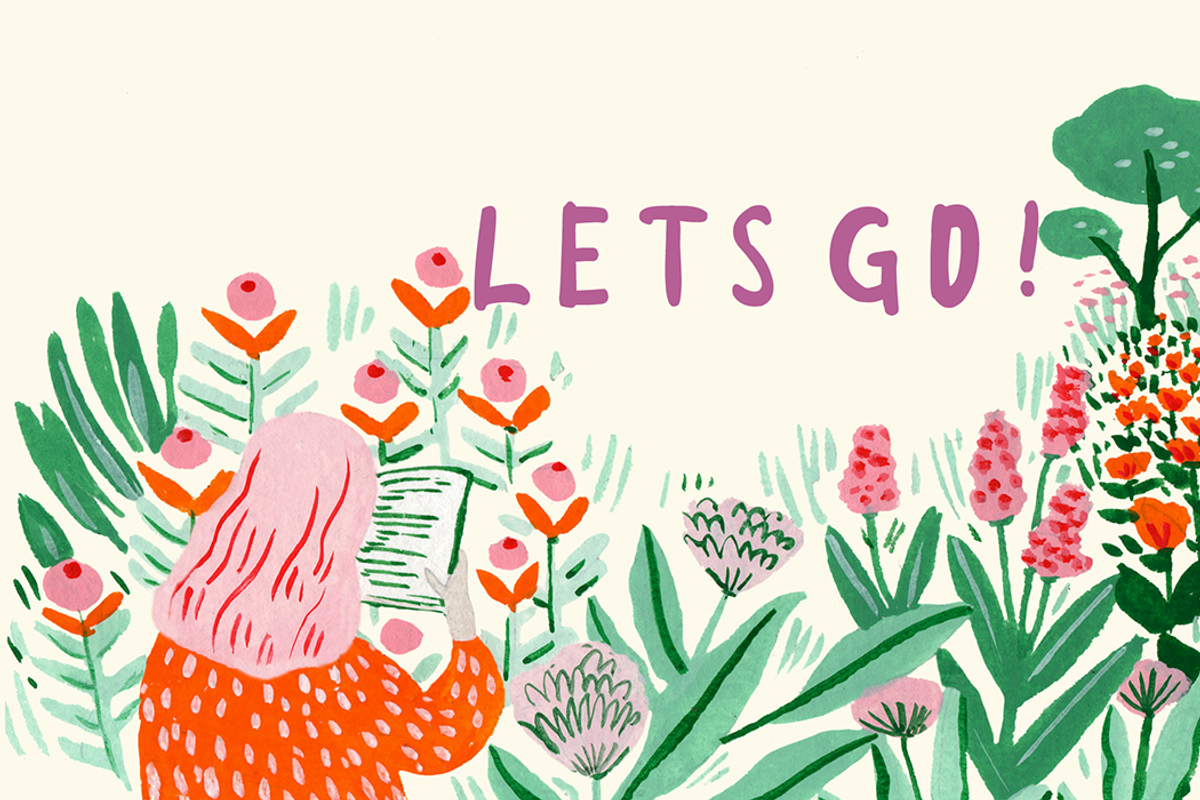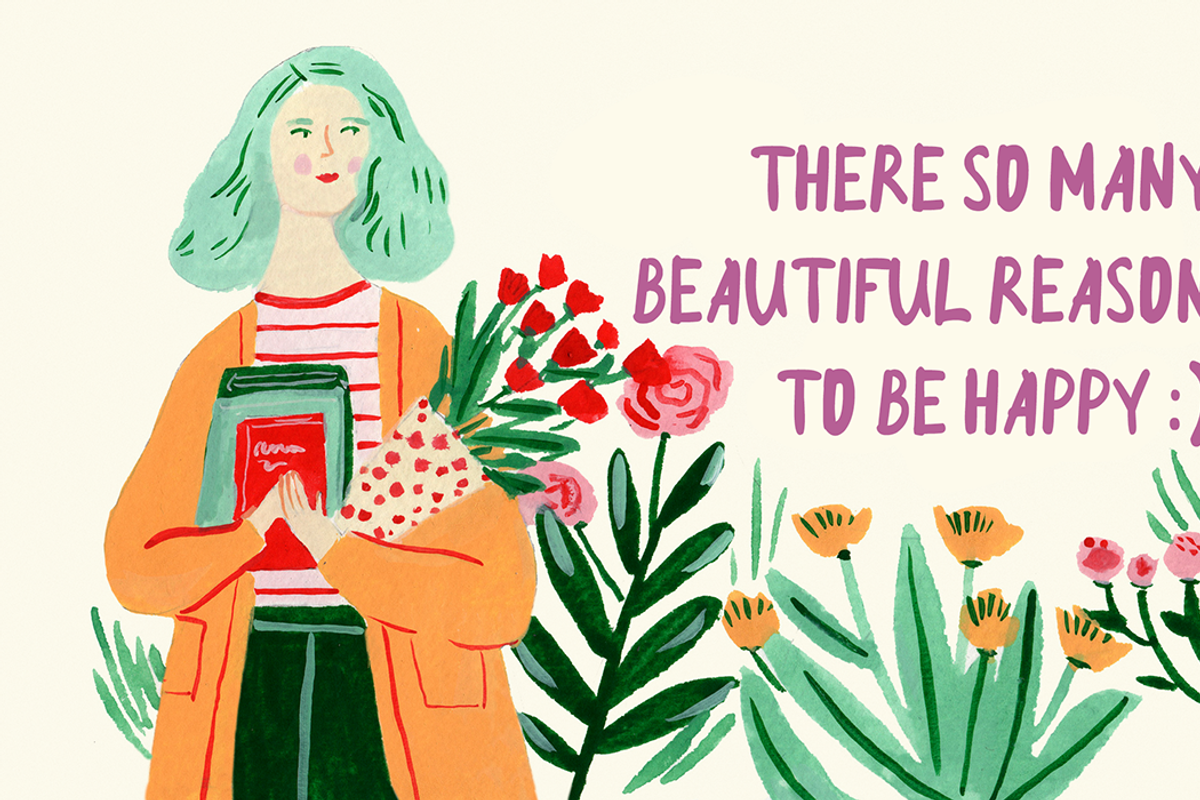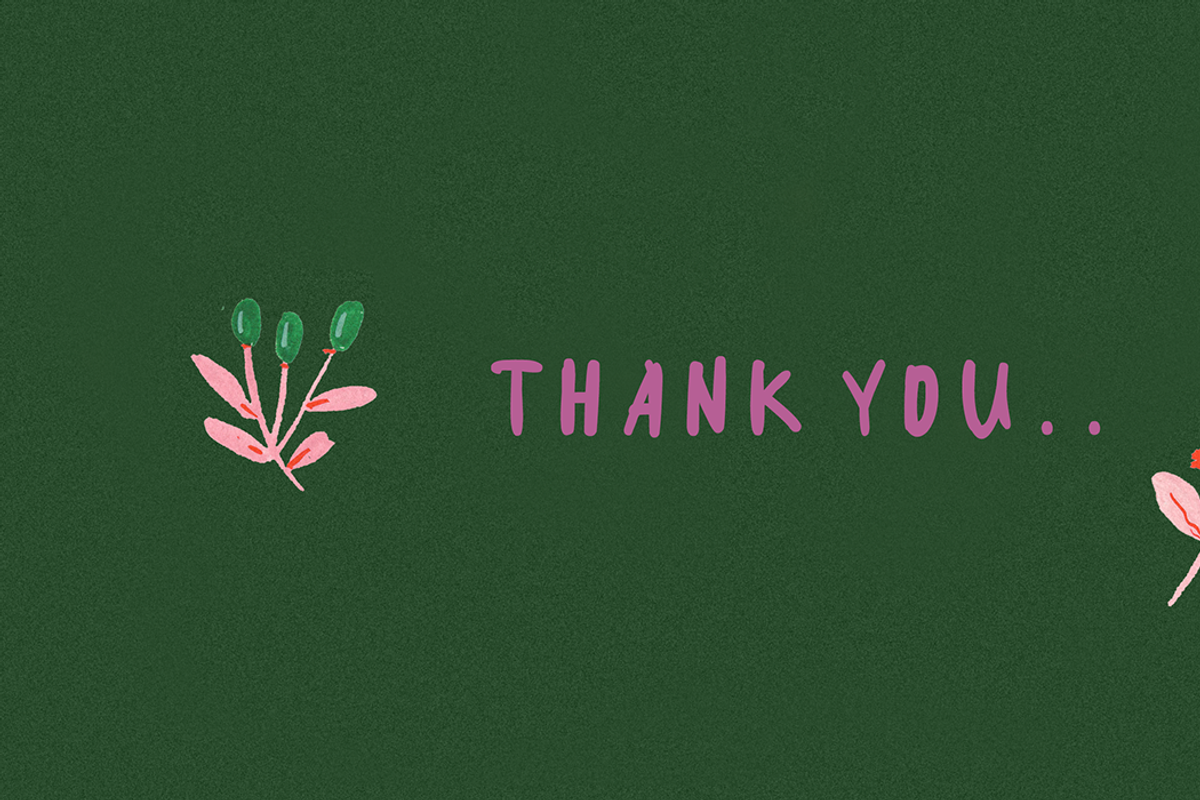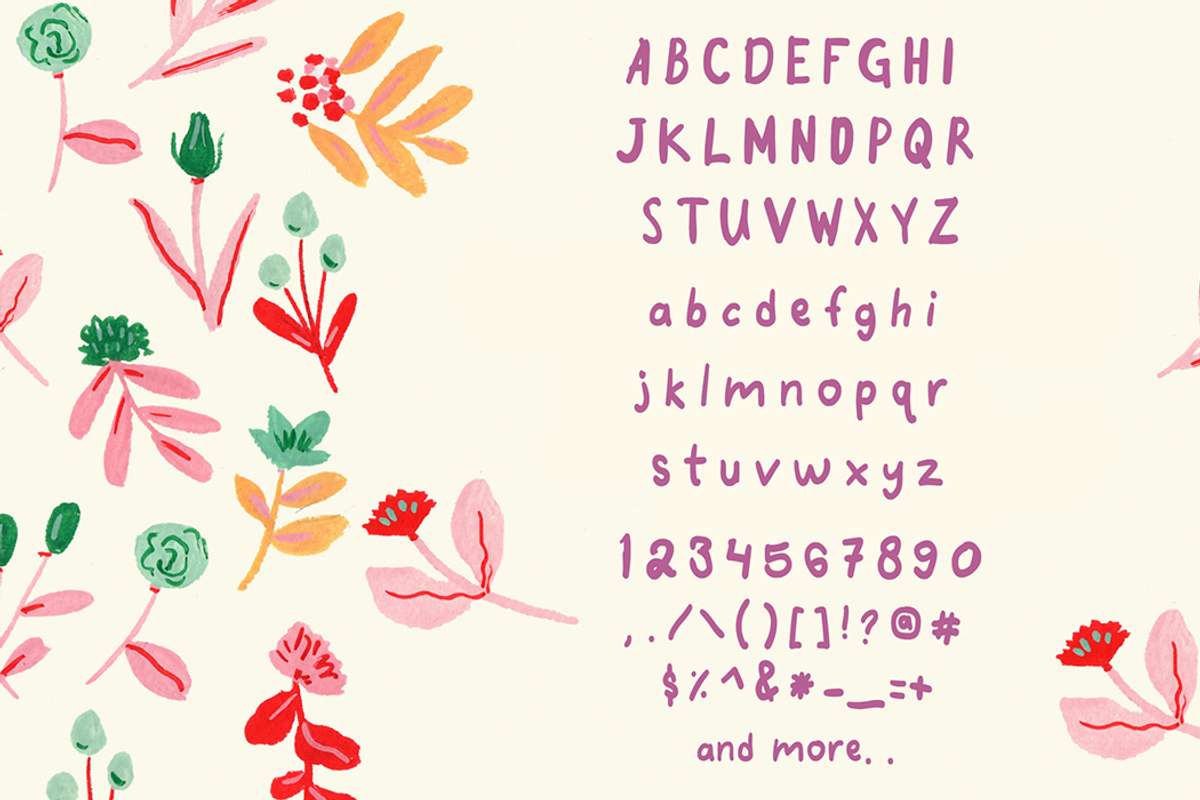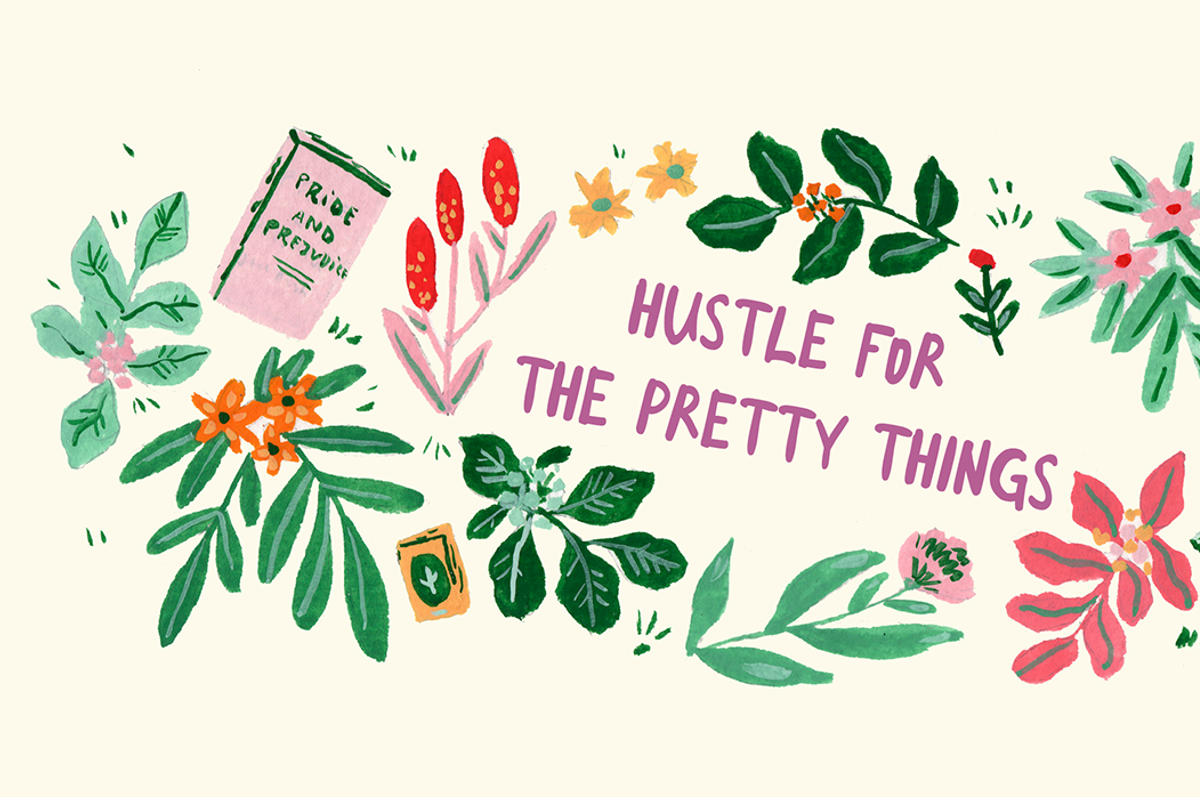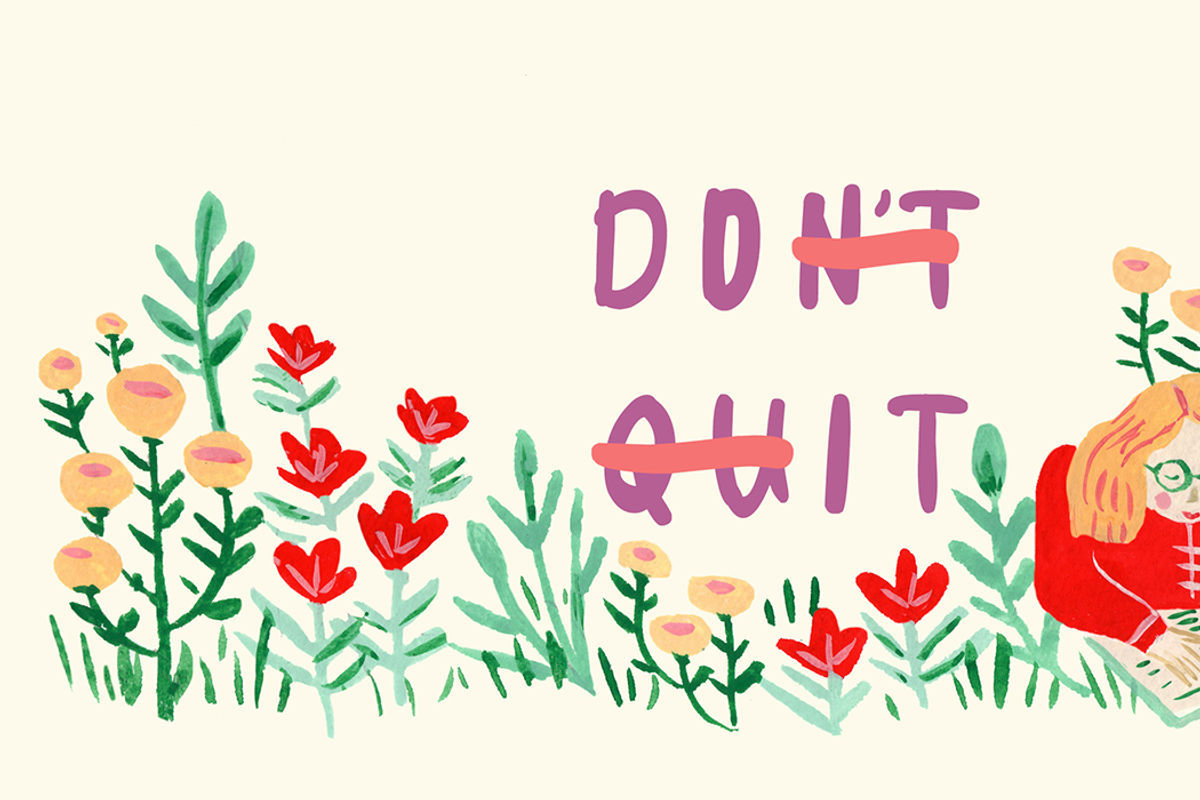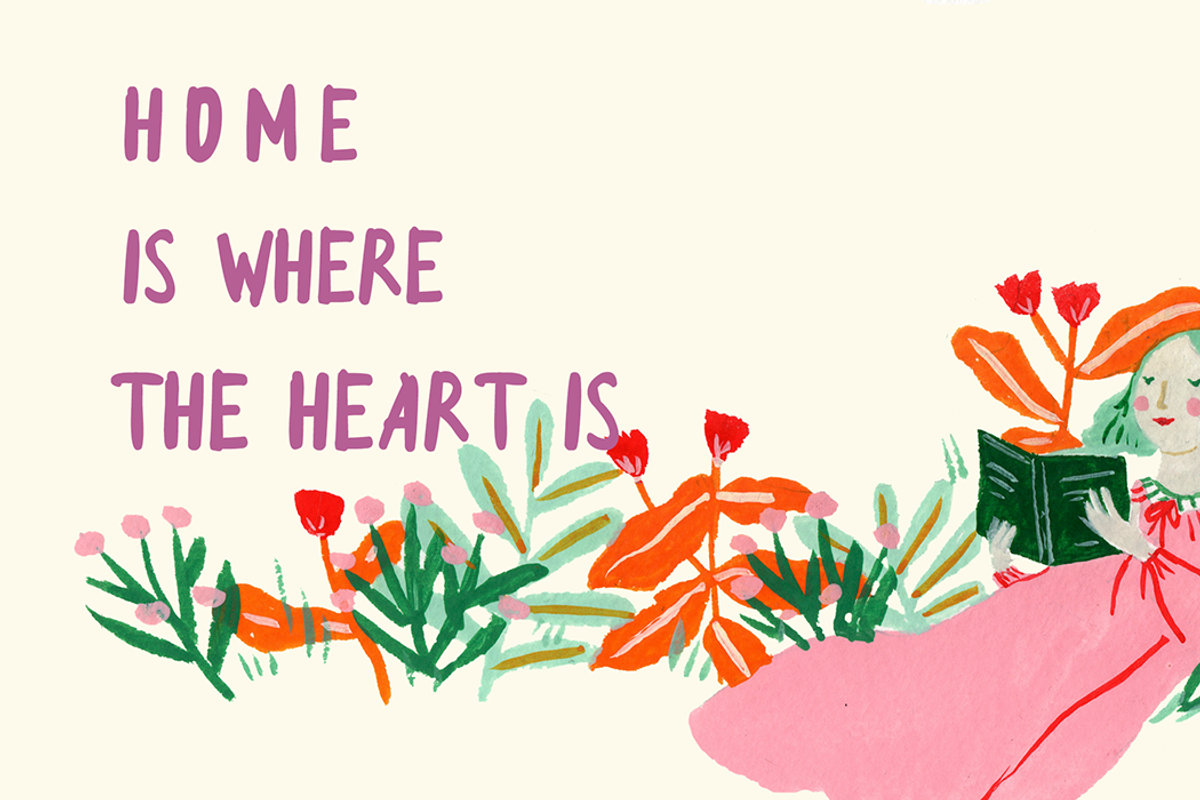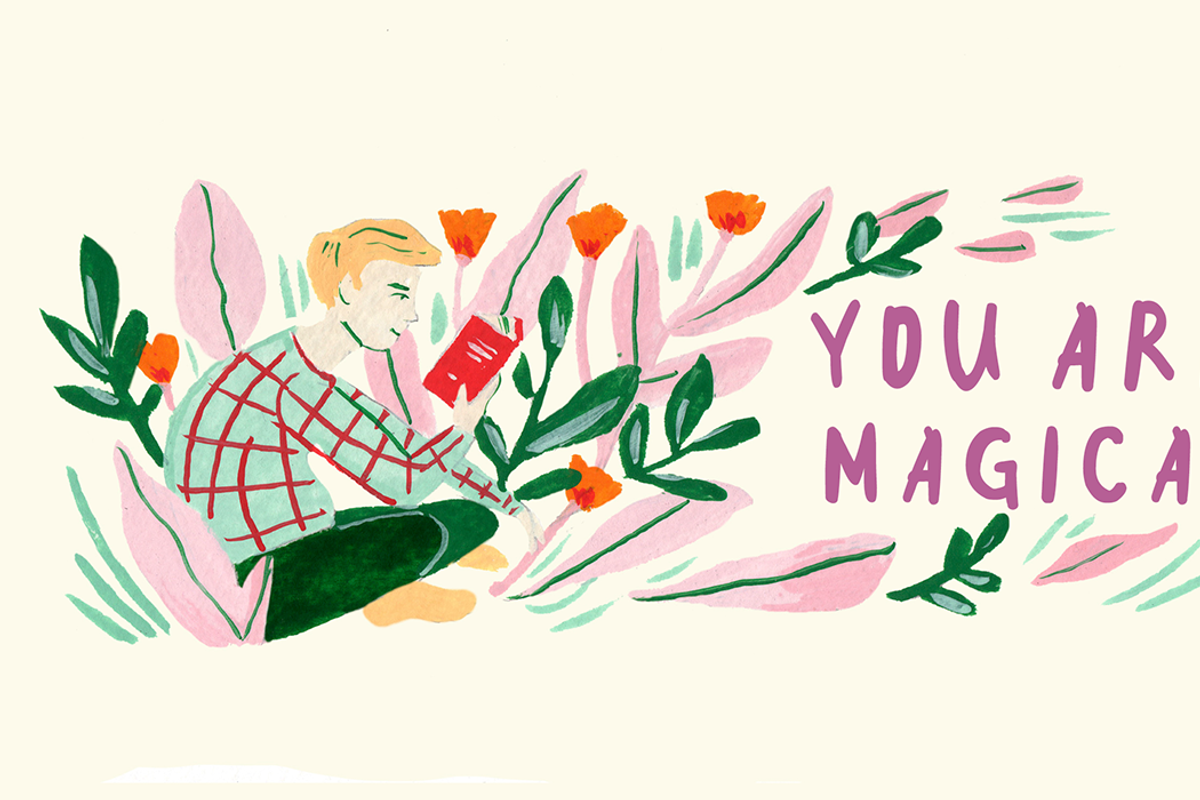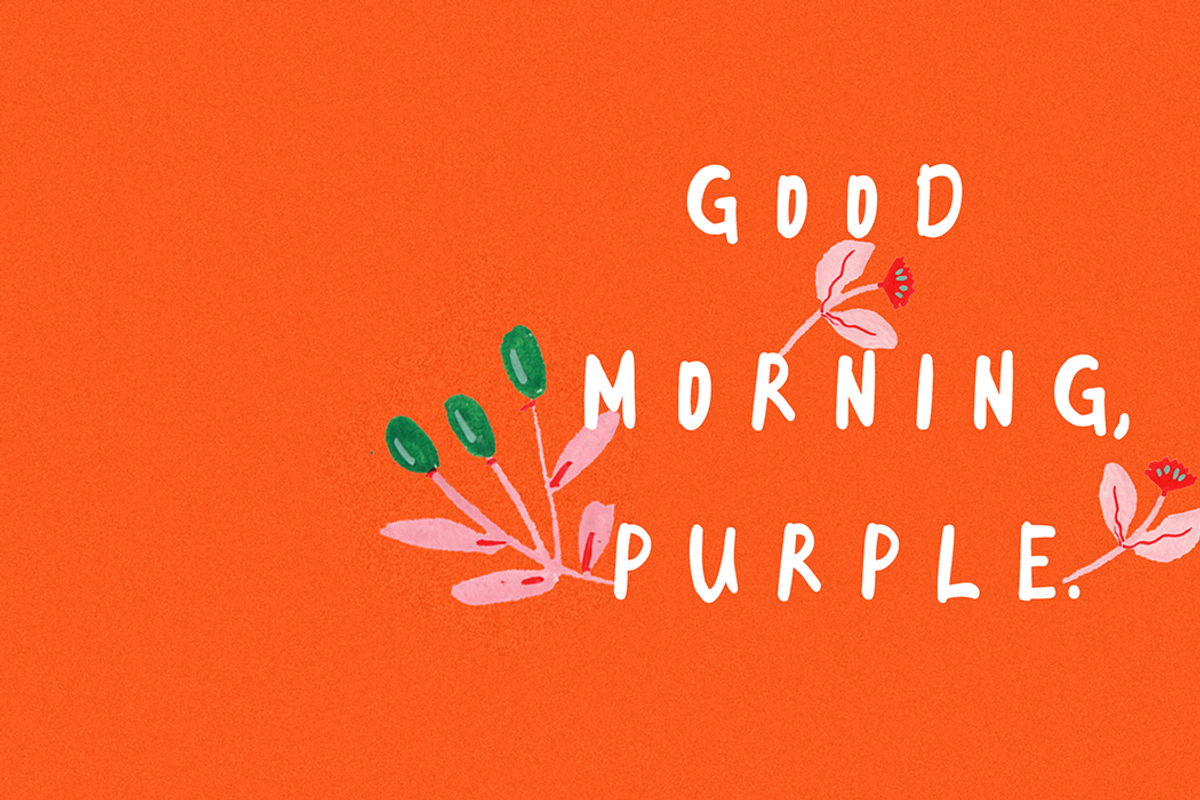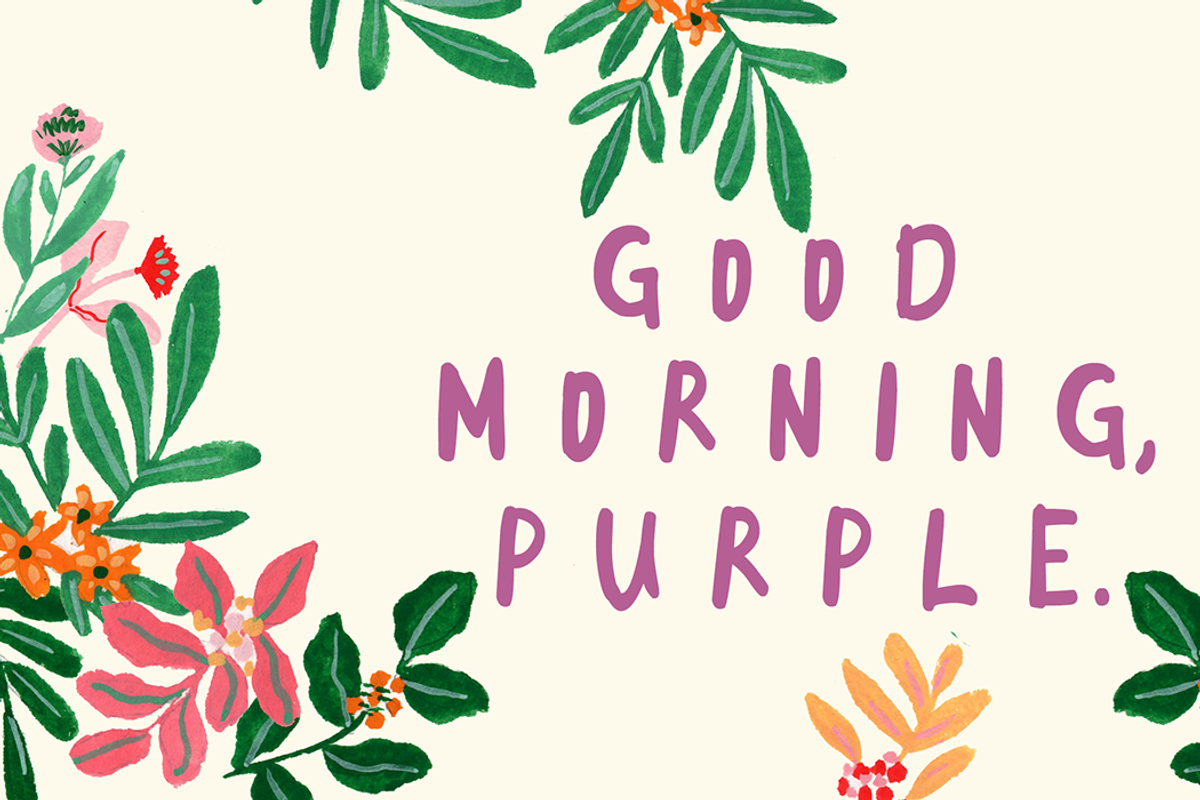
Good Morning Purple - Handwritten
Good Morning Purple is a fun sans serif font, perfect for amplifying the breeziness of your works. This handwritten font is a great way to add cohesion to your work, and is highly legible for use in headlines and body texts.